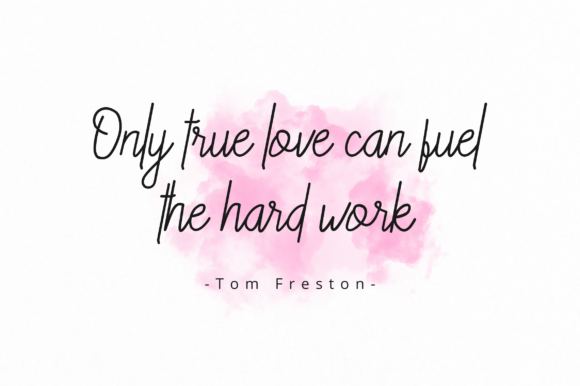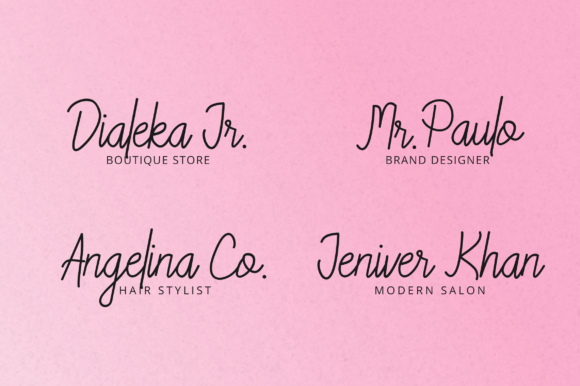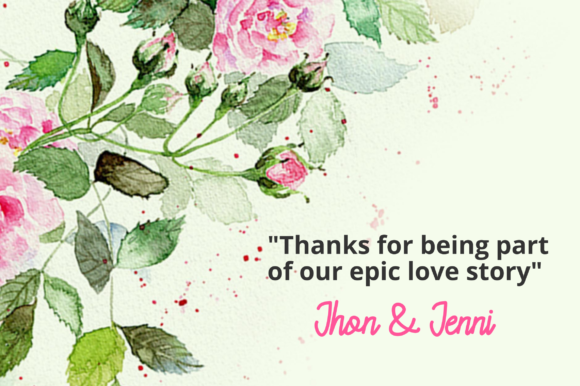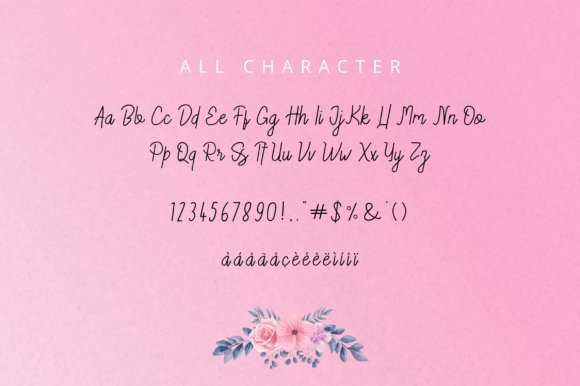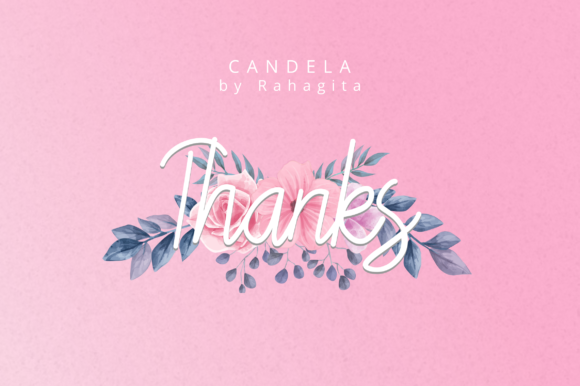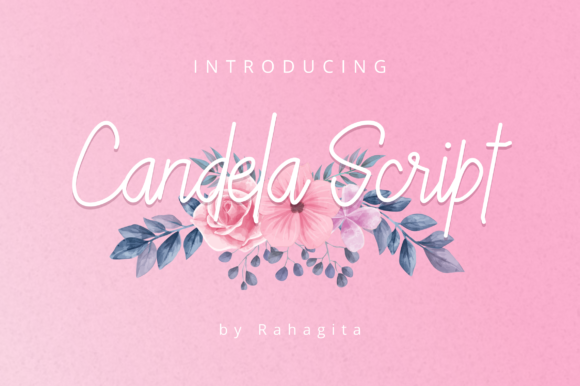
Candela Font: A Sweet and Charming Script Full of Life
Candela is a sweet and charming script full of life, designed to capture the hearts of designers, crafters, and anyone who appreciates authentic beauty. This lovely font is perfect for a variety of creative projects, from handmade crafts to digital designs, and is sure to add a touch of warmth and personality to any piece.
The Authentic Charm of Candela
Candela’s authentic charm lies in its unique blend of classic and modern elements. The font features flowing script letters with a subtle vintage feel, making it perfect for projects that require a touch of elegance and sophistication. At the same time, Candela’s modern sensibilities ensure that it remains fresh and relevant, even in today’s fast-paced design world.
Candela’s design characteristics make it a versatile and highly usable font. Some of its key features include:
- Script letters: Candela’s script letters are the star of the show, with beautiful, flowing connections that create a sense of movement and energy.
- Vintage feel: The font’s subtle vintage feel adds a touch of warmth and character to any project.
- Modern sensibilities: Candela’s modern sensibilities ensure that it remains fresh and relevant, even in today’s fast-paced design world.
- Legibility: Despite its script nature, Candela remains highly legible, even at smaller font sizes.
Uses for Candela
Candela’s versatility makes it suitable for a wide range of creative projects, including:
- Handmade crafts: Candela is perfect for handmade crafts, such as card making, scrapbooking, and journaling.
- Digital designs: The font is also great for digital designs, including social media graphics, blog posts, and website headers.
- Branding: Candela’s unique charm makes it an excellent choice for branding projects, such as logos, packaging, and advertising materials.
- Stationery: The font is also well-suited for stationery, including invitations, thank you cards, and letterhead.
Tips for Using Candela
To get the most out of Candela, here are a few tips to keep in mind:
- Pair with contrasting fonts: Candela pairs beautifully with contrasting fonts, such as bold sans-serifs or elegant serifs.
- Experiment with colors: The font looks great in a variety of colors, from bright and bold to soft and pastel.
- Use it sparingly: While Candela is a beautiful font, it can be overwhelming if overused. Use it sparingly to add a touch of elegance and sophistication to your designs.
In conclusion, Candela is a sweet and charming script font that is sure to capture the hearts of designers, crafters, and anyone who appreciates authentic beauty. With its unique blend of classic and modern elements, Candela is perfect for a wide range of creative projects, from handmade crafts to digital designs. So why not fall in love with Candela’s authentic charm and add it to your design toolkit today?